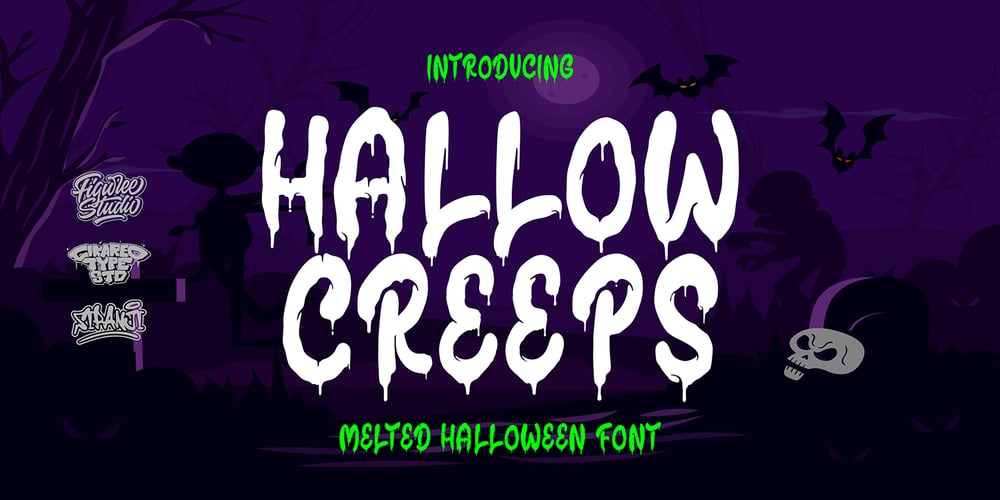
Hallow Creeps Font Family was designed by Sipanji and published by Sipanji21. Hallow Creeps contains 1 styles and family package options. “Hallow Creeps” is a Halloween font with melted decorations on each character, making it perfect for various Halloween and horror-themed projects. With its spooky and eerie style, this font adds a chilling and haunting touch to your designs, setting the perfect atmosphere for Halloween-inspired graphics, posters, party invitations, and more.